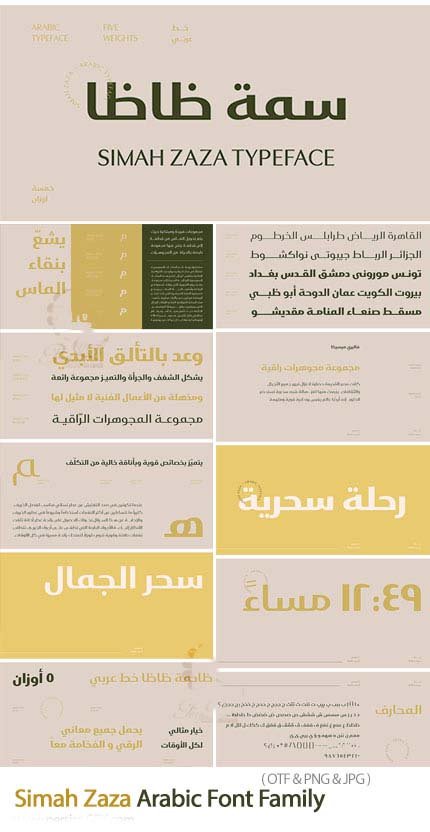
Simah Zaza Arabic Font Family
Sima Zaza is a masterfully designed typeface that brings together the geometric precision of Kufic manuscript tradition with the flowing warmth of Naskh calligraphy. The result is a font of remarkable emotional depth and technical excellence—luxurious yet approachable, precise yet warm, contemporary yet timeless.
Design Philosophy:
- Luxurious, warm character with human emotion
- Soft, clear letterforms with inviting presence
- Flexible design adaptable to any application
- Simple elegance with contemporary appeal
- Emotional depth with technical precision
Influences:
- Kufic manuscript style for geometric structure
- Naskh tradition for flowing warmth
- Harmonious blend of precision and emotion
- Contemporary interpretation of classic forms
Technical Excellence:
- Exceptionally readable at all sizes
- Optimized for both print and screen display
- Performs beautifully even at small font sizes
- High-precision design for professional results
- Clear, crisp rendering across all media
Arabic Script:
- Complete Arabic character set
- Full support for diacritics and marks
- Proper character connections and positioning
- Luxurious styling across all letters
- Optimized for all applications and sizes
- Titles & Headlines: Elegant display typography
- Logos: Luxurious, memorable brand identities
- Branding: Sophisticated identity systems with warmth
- Books: Beautiful publication design
- Magazines: Contemporary editorial work
- Motion Graphics: Dynamic typography for video
- Web Design: Elegant digital experiences
- Television: Broadcast-ready type
- Packaging: Premium product presentation
- Advertising: Campaigns with emotional resonance
- Luxurious Warmth: Emotional depth with refined elegance
- Exceptional Readability: Clear at any size, even small
- Dual Influence: Kufic precision + Naskh warmth
- Versatile Application: Perfect for any medium
- Technical Excellence: Optimized for print and screen
- Professional Quality: High-caliber font for serious work
Key Features of Sima Zaza Font:
- Luxurious, warm Arabic design with human emotion
- Kufic manuscript and Naskh influences
- Exceptionally readable at all sizes
- Complete Arabic character set
- Optimized for print and screen
- Perfect for titles, logos, branding, books, magazines, motion graphics, web, and TV
- Brand and identity designers
- Editorial and publication designers
- Motion graphics artists
- Web and digital designers
- Broadcast designers
- Advertising and marketing professionals
- Anyone needing luxurious, emotionally resonant Arabic typography